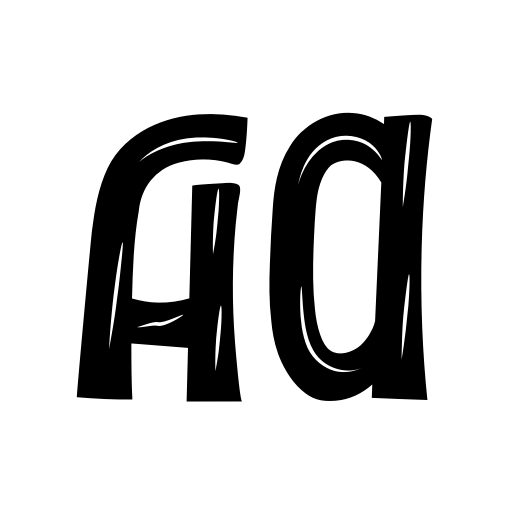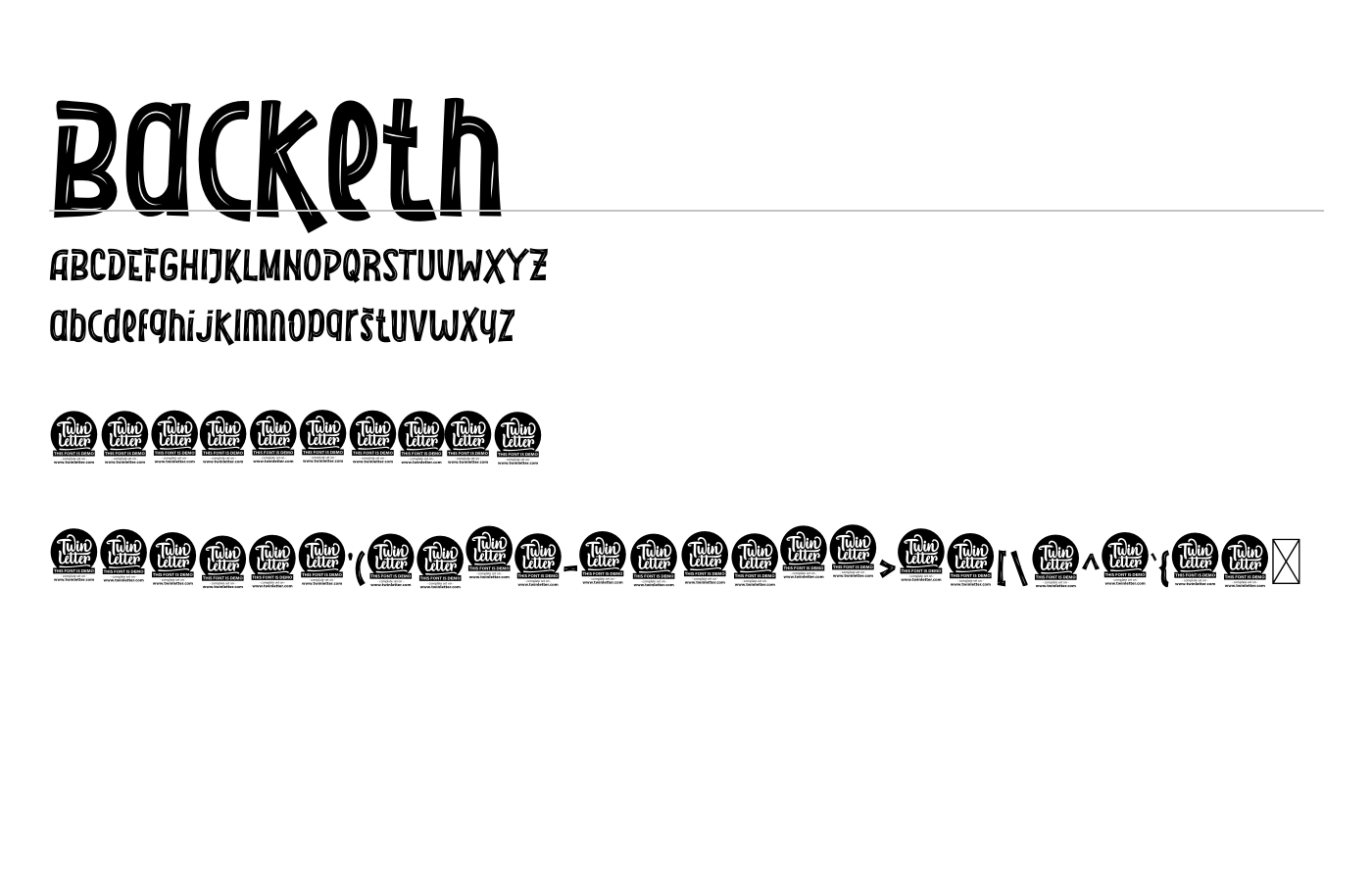
Backeth is a playful and quirky sans serif font characterized by its tall, narrow letterforms and uneven stroke widths that give it a hand-drawn, whimsical feel. Its high x-height and slightly distorted shapes make it ideal for creative, informal designs looking to convey friendliness and uniqueness. This font works well for headlines, branding, and packaging where a fun and distinctive style is desired.
Backeth Font
About Backeth Font